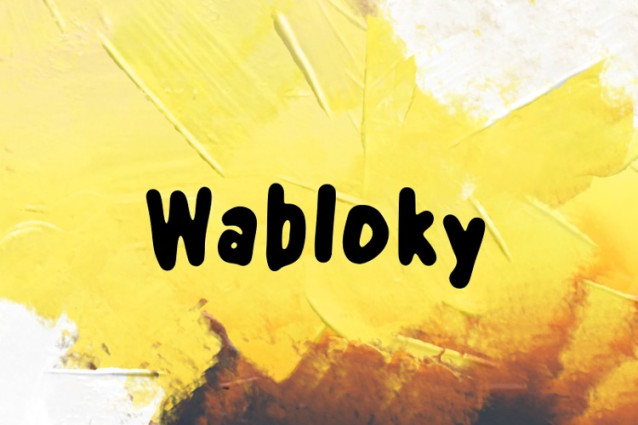
Wabloky Font
Wabloky Font is a chunky, comic, and cartoon display font. With its neat and joyful personality, this font will enhance any project you wish to create!